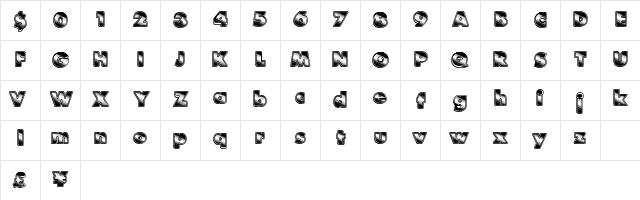
StarDancing Regular
Foundry: Xerographer Fonts
Design Context for StarDancing
StarDancing is a composed and adaptable typeface that performs quietly and consistently across a wide range of design contexts.